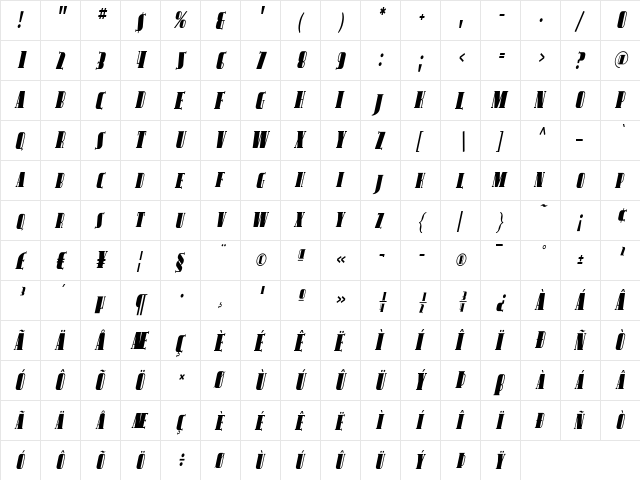
Avondale SC Cond Italic Font Preview
| Designer | Derek Vogelpohl |
Design Context for Avondale SC Cond Typeface
Avondale SC Cond takes a measured approach to typography — its balanced proportions and neutral character make it a reliable workhorse for both digital and print work. The slanted form adds forward momentum and visual energy. The condensed width makes it efficient for tight spaces without sacrificing legibility.
Pro Tip: Try Avondale SC Cond for annotation and caption copy alongside an upright companion — the contrast in angle creates a dynamic but ordered typographic system.